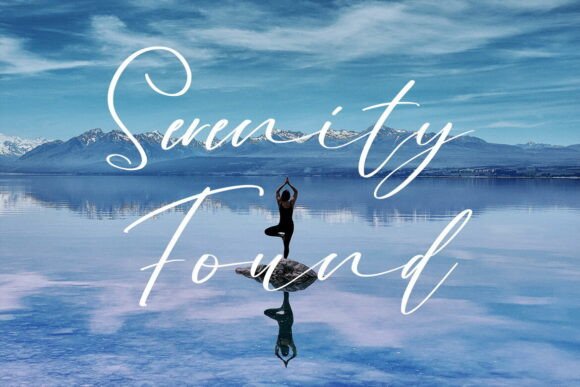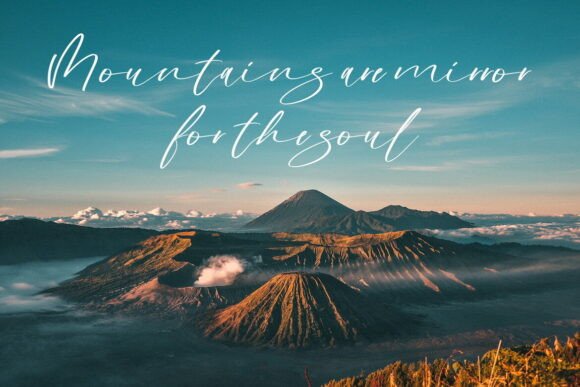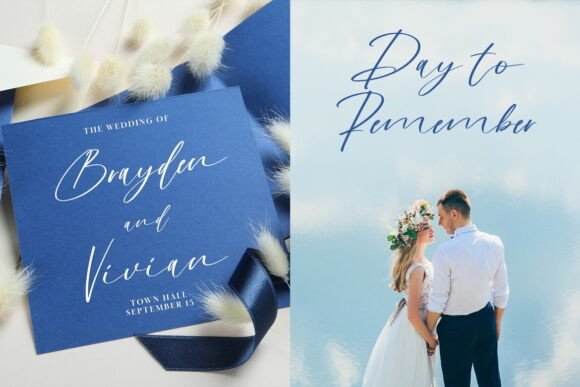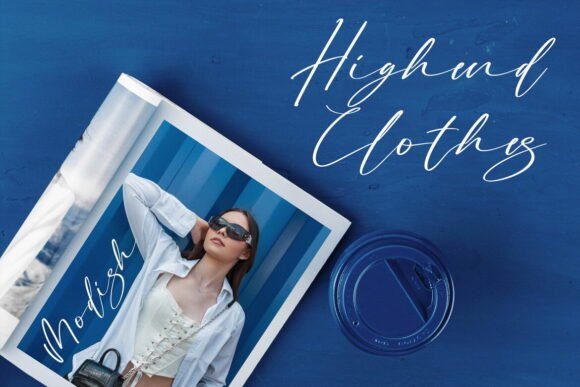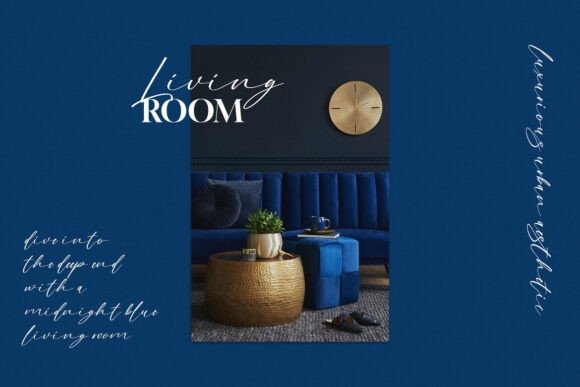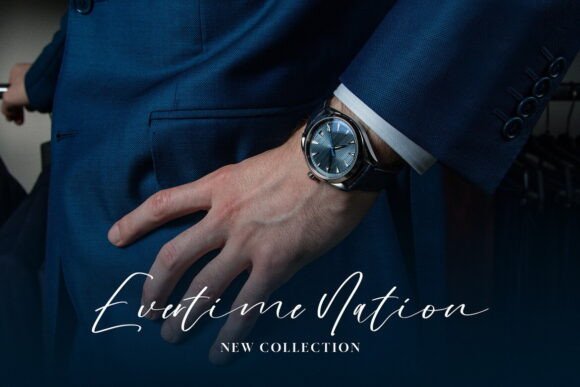
Introduction to Lentera Jiwa Font
Do you remember the moment when the perfect font clicked into place, elevating your design from good to great? For many of us, it’s a feeling of pure excitement and relief. One such font that can evoke that same sense of wonder is the Lentera Jiwa Font, a stunning modern script font that’s sure to illuminate your creative projects.
As designers, we’re always on the lookout for high-quality design resources that can help us create unique and captivating visuals. The Lentera Jiwa Font is an excellent addition to any designer’s toolkit, offering a transparent background and free download options that make it easily accessible. Its elegant curves and delicate strokes add a touch of sophistication to any design, making it perfect for title posters, wedding invitations, logos, branding materials, and heartfelt messages.
Whether you’re working on a creative project or simply need a beautiful font to add a personal touch, the Lentera Jiwa Font is an excellent choice. Its captivating beauty and enchanting feel make it a valuable resource for designers who want to create truly exceptional designs.
Key Features of Lentera Jiwa Font
- Unique and Creative Script Font: Lentera Jiwa Font is a high-quality, elegant script font designed to add a touch of sophistication to any creative project.
- Perfect for Design Projects: Lentera Jiwa Font is ideal for use in creative projects such as branding, invitations, and other design materials that require a touch of elegance and sophistication.
Honest Review: Lentera Jiwa Font
I recently had the chance to work with the Lentera Jiwa Font, and I must say it’s been a great addition to my design resources. One of the things that stands out about this font is its high quality and unique aesthetic. ✨ It’s perfect for creative projects where you want to add a touch of elegance and sophistication.
- Unique and elegant design
- High quality and detailed typography
- Only available in a limited number of font styles
- May not be suitable for very large or complex text
- Not as versatile as some other fonts
Overall, I’m really impressed with the Lentera Jiwa Font and would definitely recommend it to designers looking for a high-quality and unique font for their creative projects. Just be aware of the limitations and use it accordingly. ⚠️
Getting the Most Out of Lentera Jiwa Font
To get the most out of the Lentera Jiwa Font, use it in combination with other design elements to create a cohesive and professional design. Experiment with different font sizes and colors to add depth and visual interest to your project.
The Lentera Jiwa Font is ideal for a variety of creative projects, including business cards, brochures, and social media graphics. Its high-quality design and transparent background make it perfect for designers who want to add a unique touch to their work.